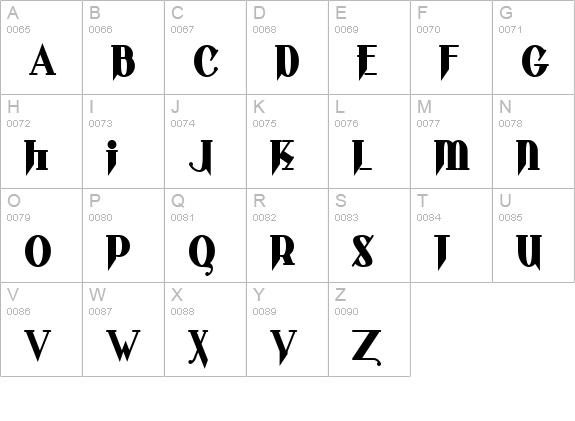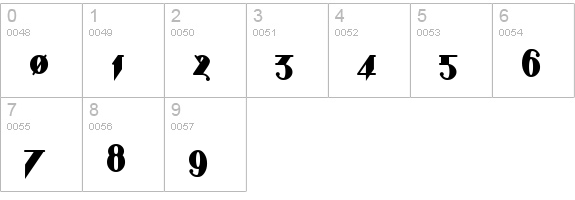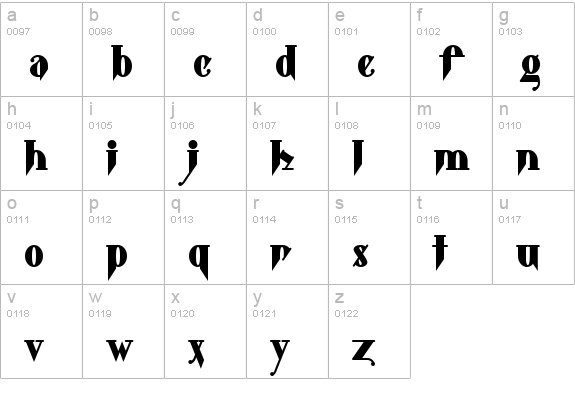
Shark Font Details
Introducing the captivating Shark font! This stunning typeface is designed to make a splash and leave a lasting impression. With its sleek and sharp letterforms, Shark font exudes a sense of power and elegance that is sure to catch the eye. But what sets Shark font apart from the rest is its unique blend of modernity and versatility. Whether you're designing a logo, creating a poster, or crafting a headline, this font effortlessly adapts to any project, adding a touch of sophistication and finesse. And the best part? Shark font is completely free! Yes, you heard it right. This amazing font is freely available to download at FontsMarket.com, a trusted source for high-quality fonts. So, whether you're a professional designer or simply a typography enthusiast, you can easily get your hands on this remarkable typeface without breaking the bank. But don't be fooled by its cost-free nature. Shark font is meticulously crafted with attention to detail, ensuring flawless legibility and a seamless reading experience. Each character is carefully balanced, allowing for smooth and harmonious typography that elevates your designs to new heights. So, dive into the world of Shark font and unleash your creativity like never before. Whether you want to make a bold statement or add a touch of sophistication, this font is your go-to choice. Download Shark font now, exclusively at FontsMarket.com, and let your designs make waves!